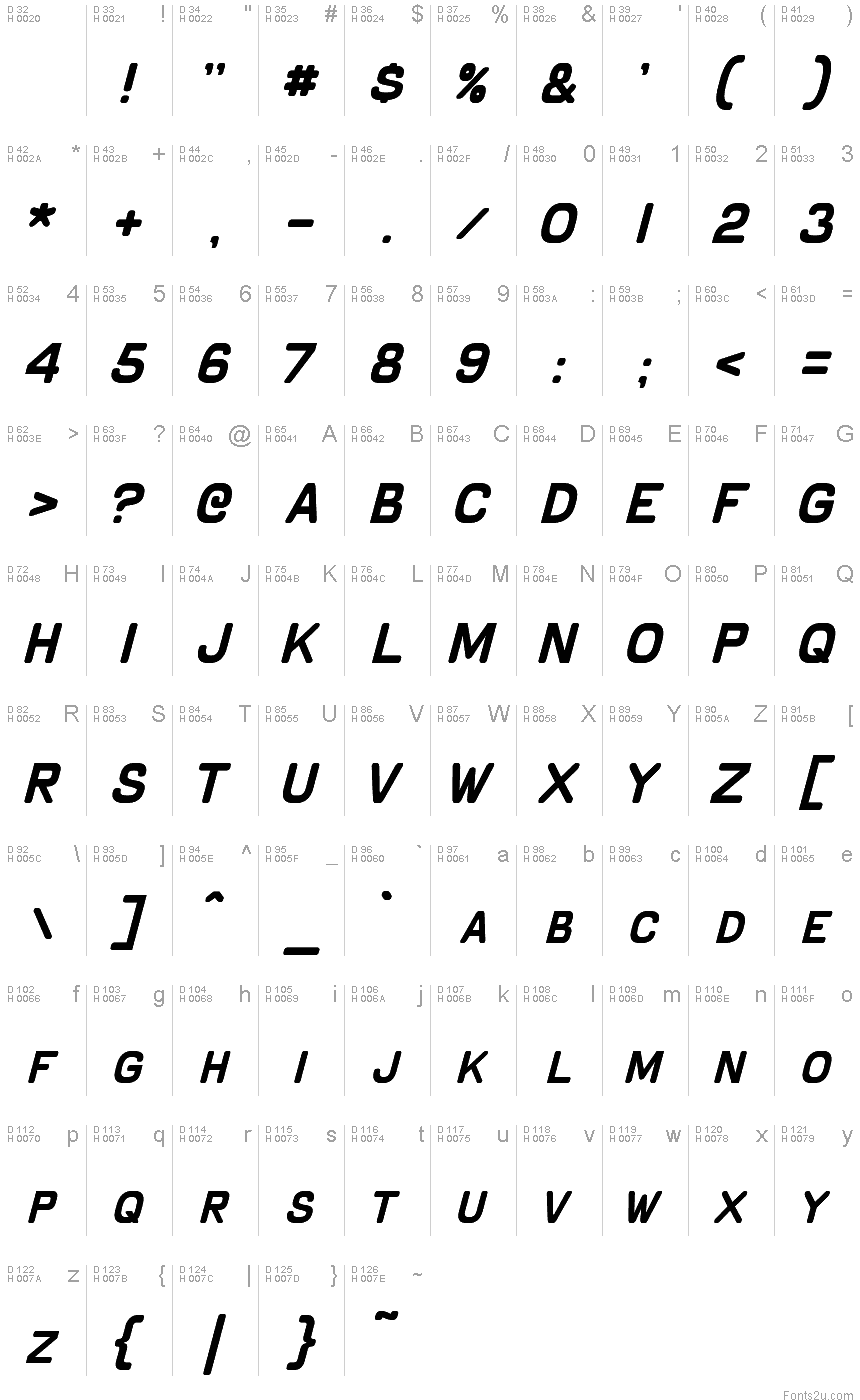
Schnaubelt Italic
Schnaubelt rodina skládající se z 4 písma
Schnaubelt is heavily based on the typeface of the drawing stencil used on the Star Trek: Technical Manual. It is a simple, clean "small-caps" engineering face commonly found on blueprints. This font includes full alphanumerics, extended punctuation, euro. Available in regular, bold italic, and bold-italic weights.
* Added Polish Characters